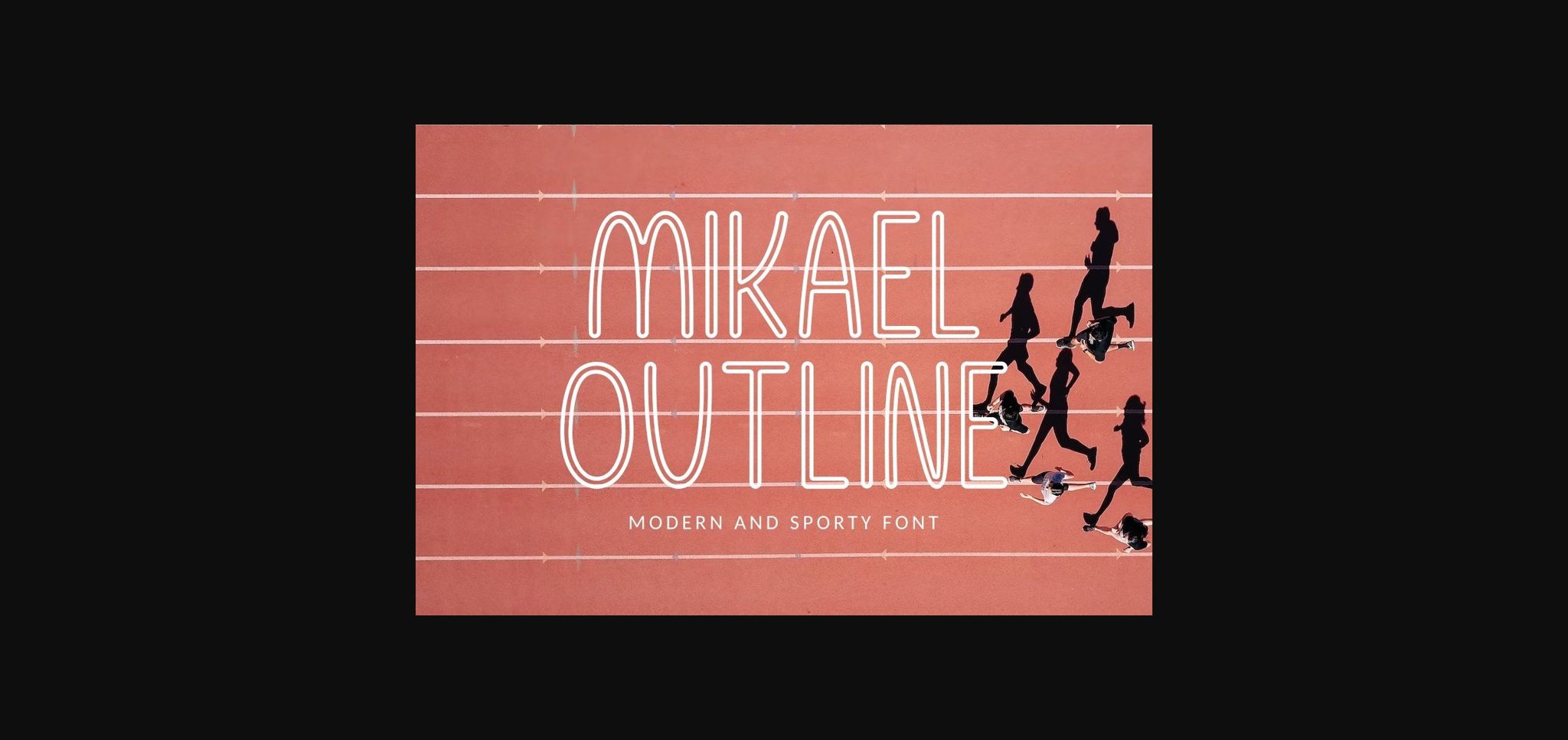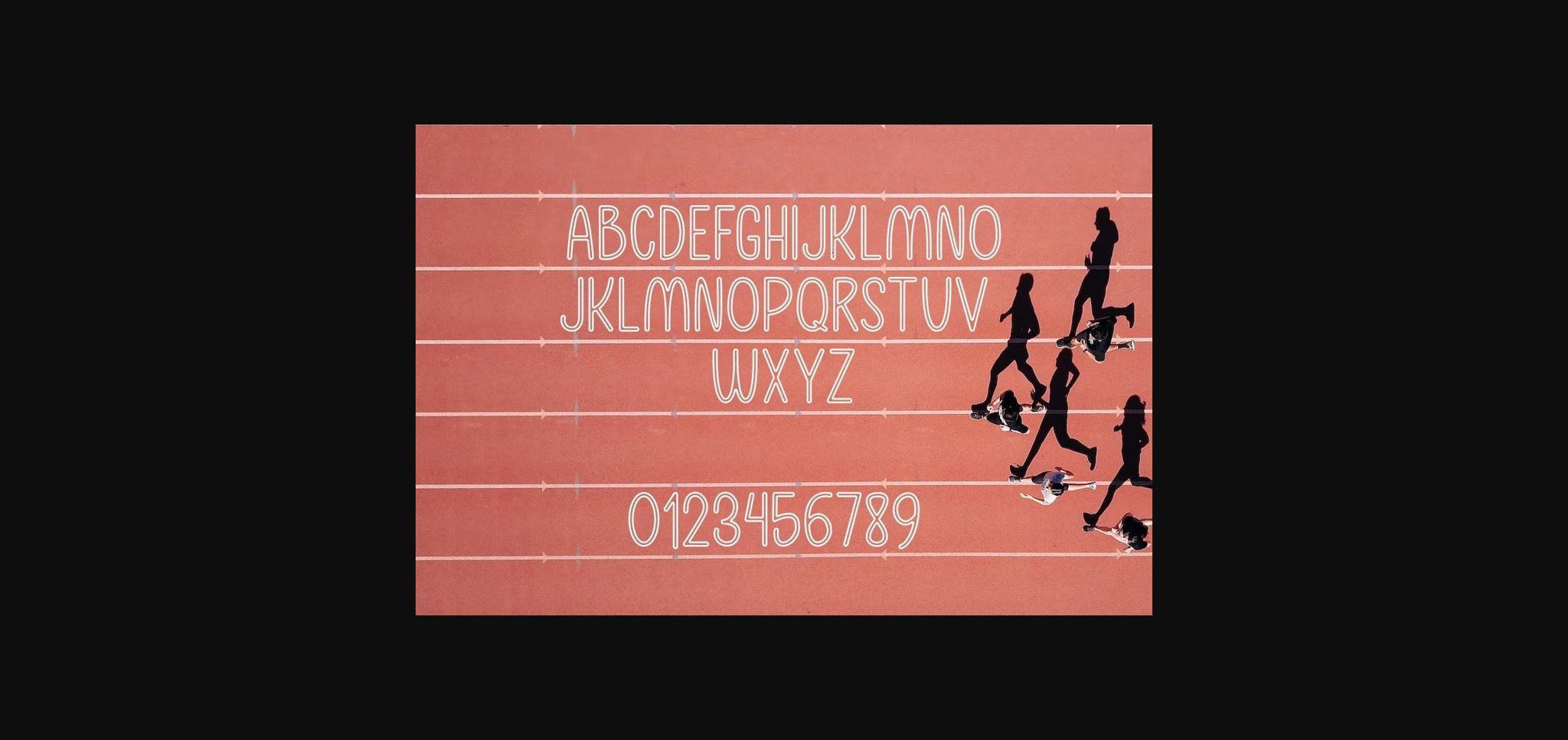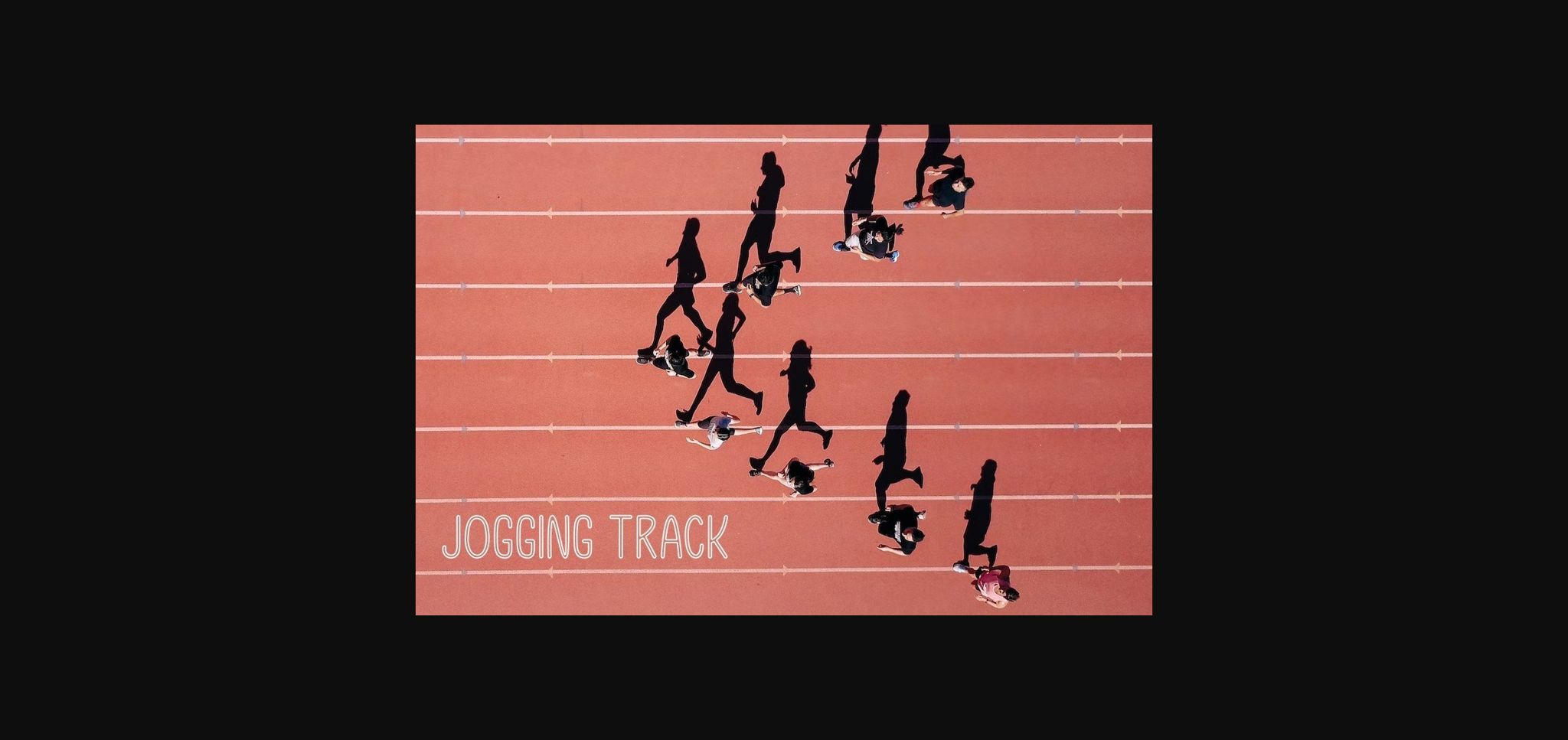
Mikael Outline Font
About Mikael Outline Font
Mikael Outline is an elegant sans serif font that blends traditional influences into a contemporary aesthetic. This font is great for branding, logos, greeting cards, business cards, posters, t-shirt designs, menu designs, social media, and websites.